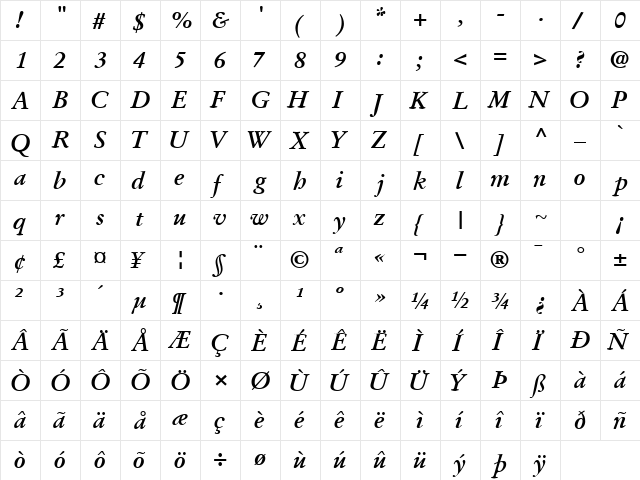
DeutchGaramondSSK Bold Italic Font Preview
Design Context for DeutchGaramondSSK Typeface
DeutchGaramondSSK offers clean, dependable letterforms without strong stylistic allegiance, making it a practical choice for designers who need flexibility. The slanted form adds forward momentum and visual energy. The heavy weight commands attention and anchors typographic hierarchies.
Pro Tip: Try DeutchGaramondSSK for annotation and caption copy alongside an upright companion — the contrast in angle creates a dynamic but ordered typographic system.